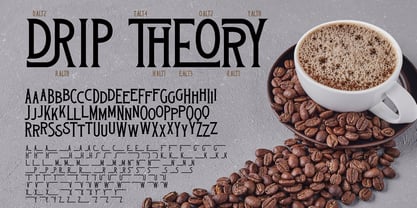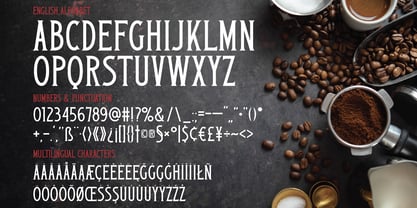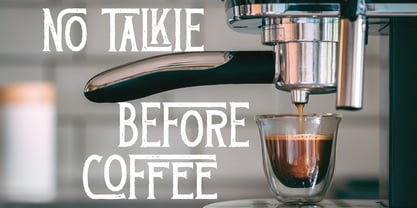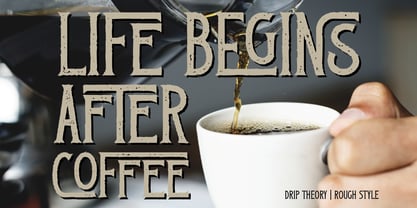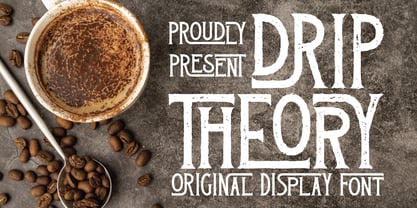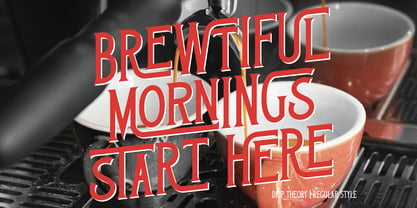
Drip Theory
by Vozzy
Introducing "Drip Theory," a distinctive font designed to make your headlines and accent inscriptions stand out. This eye-catching typeface is perfect for attracting attention in various applications, including branding, web design, and editorial projects. With a rich set of additional characters, punctuation marks, and multilingual options, it offers versatility for global use. The font also features a wide array of alternate characters, enhancing its creative potential—just ensure your software supports these OpenType features. Elevate your designs with the unique flair of Drip Theory!